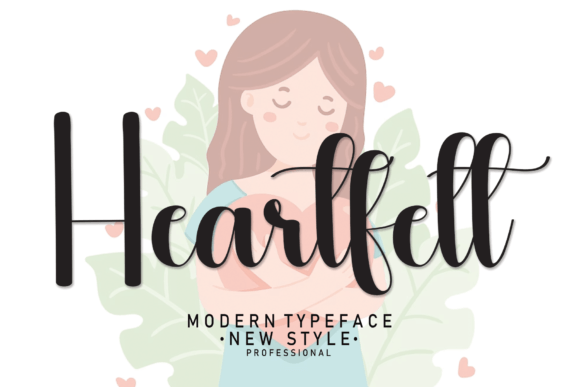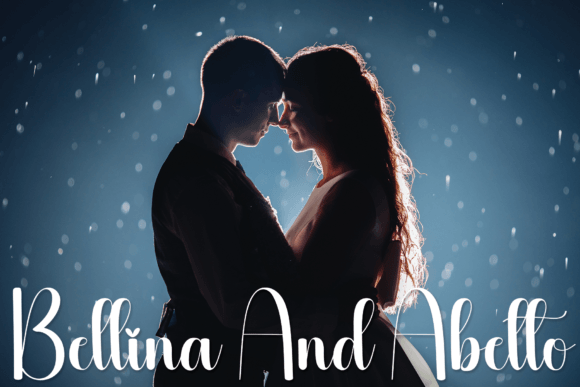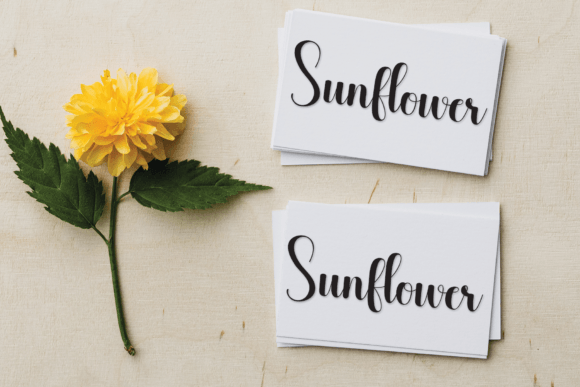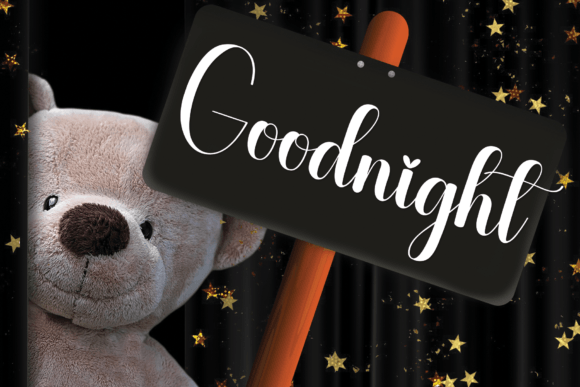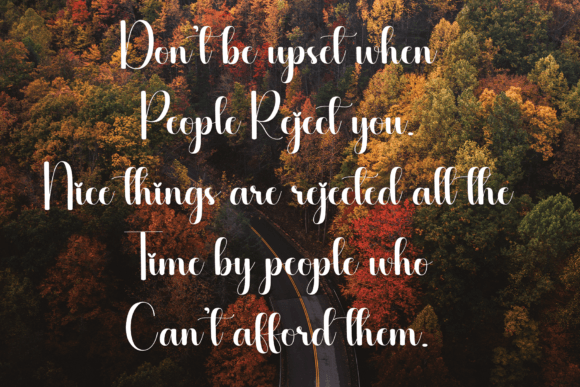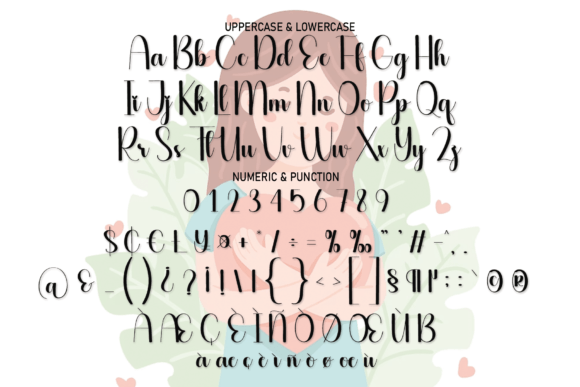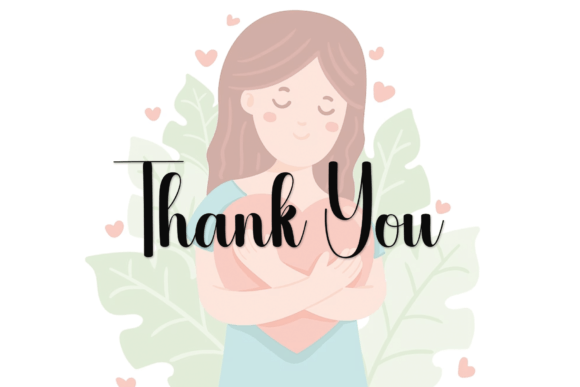
Discover the Perfect Touch of Whimsy with Heartfelt Font
Remember that moment when you stumbled upon a font that made your design dreams come true? For many of us, that moment is what drives our creative passion. As designers, we’re always on the lookout for the perfect font to elevate our projects and make them truly special. That’s where the beautiful Heartfelt Font comes in – a flowing handwritten font that adds an elegant touch to any design.
With its incredibly distinct and timeless style, Heartfelt Font is the perfect choice for designers who want to create spectacular designs that capture the essence of their vision. Whether you’re working on a wedding invitation, a blog post, or a social media graphic, Heartfelt Font is sure to make your project stand out from the crowd.
Key Features of Heartfelt Font
- Font Family: Heartfelt Font is a beautiful, handwritten font designed for various applications.
- Size: The font family includes 4 weights: Light, Regular, Bold, and Heavy, catering to different design needs.
- Unique Characteristics: Heartfelt Font features organic, handwritten strokes, giving it a personal and emotive touch.
Heartfelt Font Review
I recently had the chance to work with the “Heartfelt Font” and I must say, it’s a unique and lovely addition to any design project. ✨ The font’s rounded edges and playful feel make it perfect for projects that need a touch of warmth and personality. It’s also incredibly versatile, working well in both digital and print applications.
The font comes with a wide range of weights and styles, making it easy to create a consistent look across your project. I also appreciated the attention to detail in the font’s design, with subtle flourishes that add depth and interest. ✨ The font is also highly customizable, allowing you to adjust the spacing and line height to suit your specific needs.
While I overall loved working with the “Heartfelt Font”, there are a few limitations to be aware of:
- ⚠️ The font may not be the best choice for projects that require a high level of professionalism or formality. The playful feel of the font may come across as too casual or immature in some contexts.
- ⚠️ The font may not be as readable at small font sizes, which can make it difficult to use in situations where space is limited.
Overall, I would highly recommend the “Heartfelt Font” to anyone looking for a unique and versatile font to add some personality to their design project. While it may not be the best choice for every project, it’s a great option for those who want to add a touch of warmth and whimsy to their design. ✨
Tips for Getting the Most Out of Heartfelt Font
1. Use the font in combination with other elegant fonts to create a unique and stylish look.
2. Experiment with different font sizes and styles to achieve the desired emphasis.
3. Use the font in a bold weight to add a touch of elegance and sophistication.
Heartfelt Font is ideal for:
2. Luxury branding and marketing materials.
3. Elegant business cards and presentations.